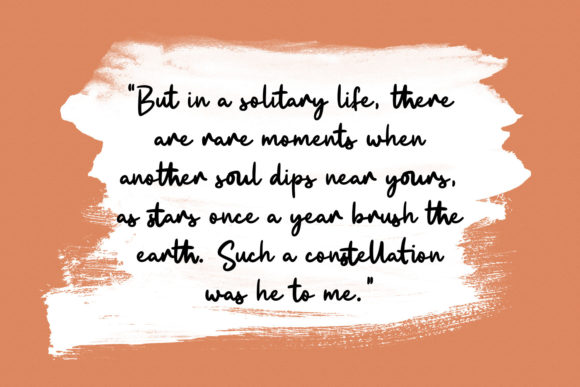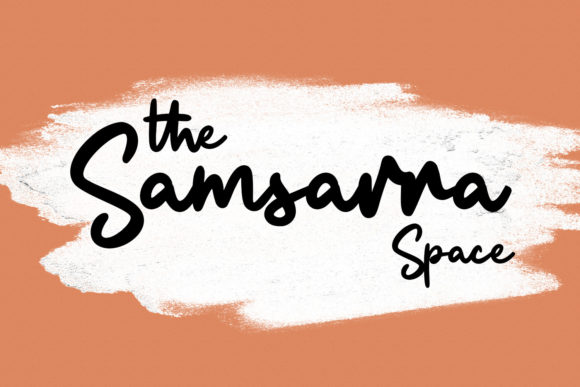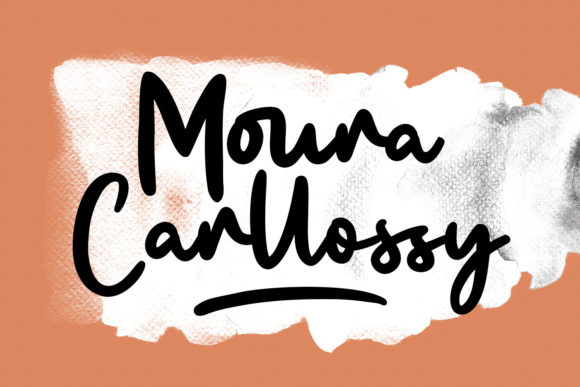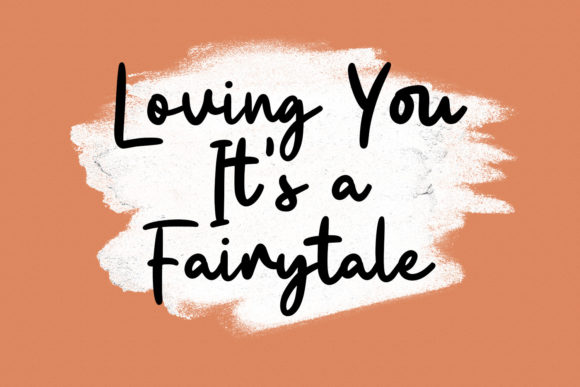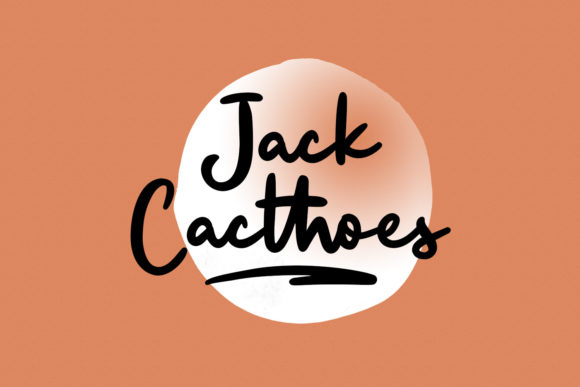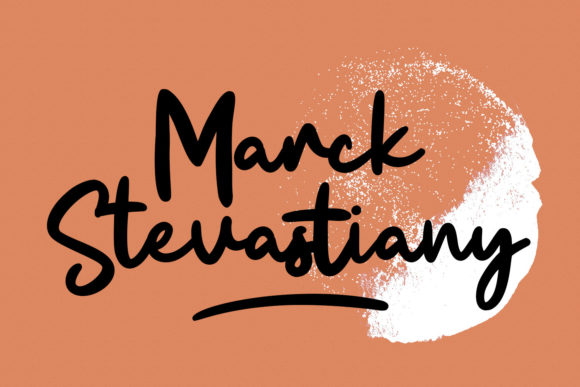
Introducing Deforest Font: The Perfect Handwritten Companion for Crafters and Designers
In the world of crafting and design, fonts play a pivotal role in bringing creativity to life. Among the myriad of typefaces available, one font that stands out for its casual and quirky charm is the Deforest Font. This handwritten font is not just a simple typeface; it’s a creative tool that can elevate a wide range of crafting ideas, from personalized cards and invitations to branding, labels, and much more. In this article, we’ll dive deep into the features of Deforest Font, its versatility, and how it can become an indispensable part of your design arsenal.
The Essence of Deforest Font
Deforest Font embodies a casual and quirky aesthetic that is hard to find in more traditional typefaces. Its handwritten nature gives it a personal and approachable feel, making it perfect for projects that require a touch of warmth and personality. Whether you’re working on a DIY craft project, designing labels for your homemade goods, or creating branding materials for your small business, Deforest Font can add that unique flair that sets your work apart.
One of the key advantages of Deforest Font is its versatility. It’s not limited to a specific type of project but can be used across a wide range of applications. Here are a few ways you can utilize Deforest Font:
- Cards and Invitations: Add a personal touch to your greeting cards, birthday invitations, and other personal correspondence.
- Branding and Packaging: Use Deforest Font to create unique logos, labels, and packaging that reflect a more personal and quirky brand image.
- Labels and Tags: Whether you’re organizing your home, labeling your garden plants, or creating tags for your craft fair items, Deforest Font can add a decorative and personalized touch.
- Digital and Print Media: Incorporate Deforest Font into your digital designs, such as social media graphics, blog headers, and print materials like flyers, brochures, and posters.
Why Choose Deforest Font?
With so many fonts available, why should Deforest Font be your go-to choice? Here are a few compelling reasons:
- Unique Aesthetic: Deforest Font offers a distinctive look that can help your projects stand out from the crowd.
- Ease of Use: Being a handwritten font, it brings a level of simplicity and ease of use that is perfect for both beginners and seasoned designers.
- Emotional Connection: The personal and quirky nature of the font can help create an emotional connection with your audience, whether it’s for personal projects or professional branding.
Tips for Using Deforest Font Effectively
To get the most out of Deforest Font, here are a few tips:
- Mix and Match: Don’t be afraid to experiment by pairing Deforest Font with other typefaces to create visual interest.
- Play with Sizes: Utilize different font sizes to create hierarchy and emphasis in your designs.
- Color Matters: Choose colors that complement the casual and quirky vibe of Deforest Font. Bright and pastel colors work particularly well.
Deforest Font is more than just a typeface; it’s a creative companion that can bring a touch of personality and whimsy to your crafting and design projects. Its versatility, unique aesthetic, and ease of use make it an excellent choice for a wide range of applications. Whether you’re a professional designer looking for a font that can add a personal touch to your work or a crafter seeking to elevate your DIY projects, Deforest Font is sure to inspire and enhance your creative endeavors.